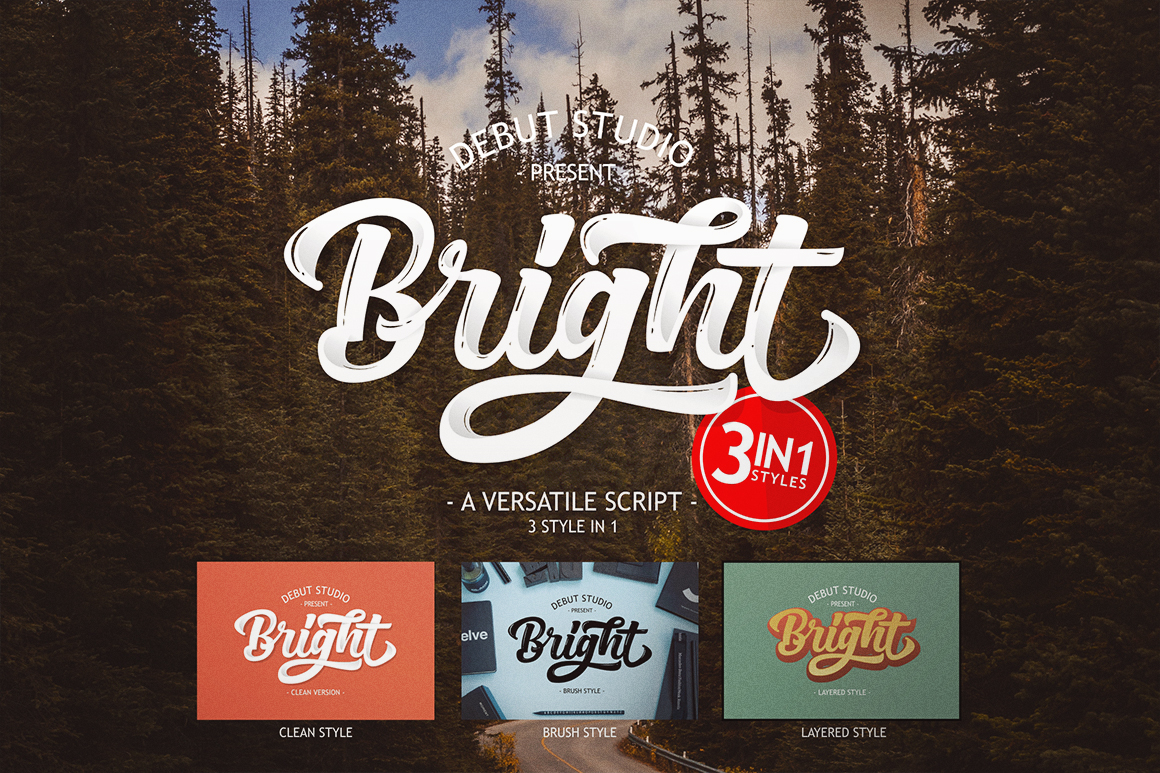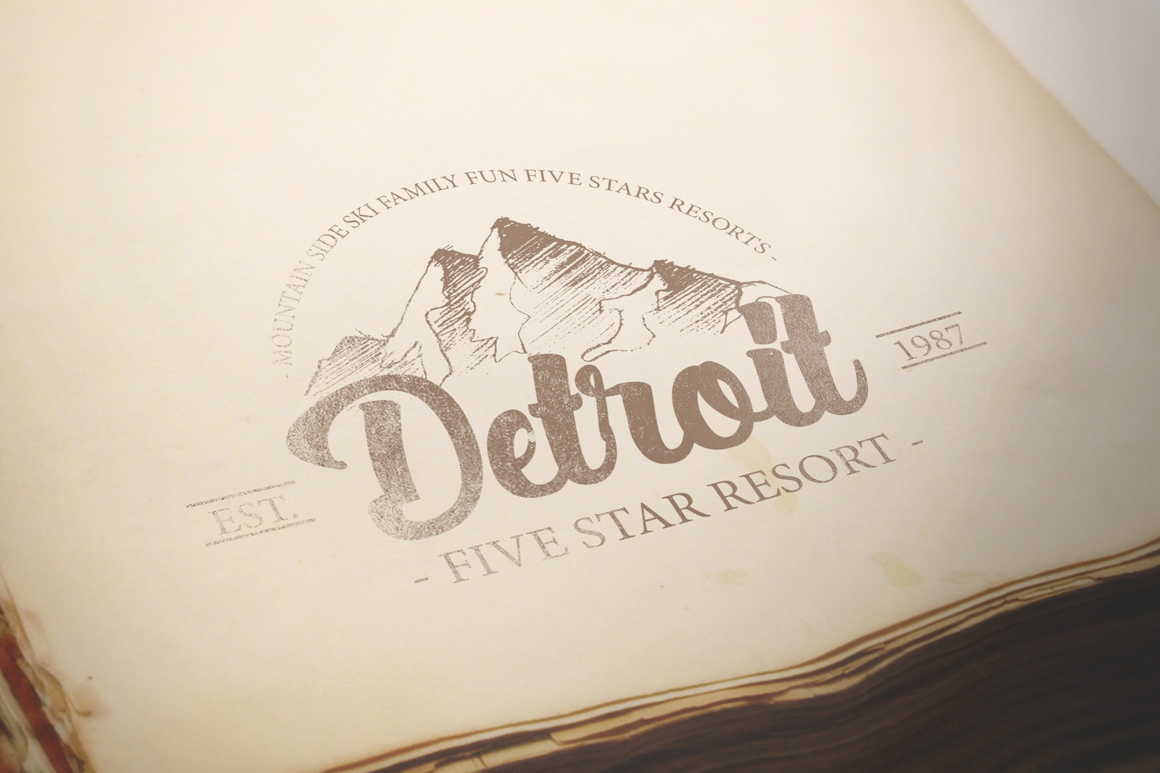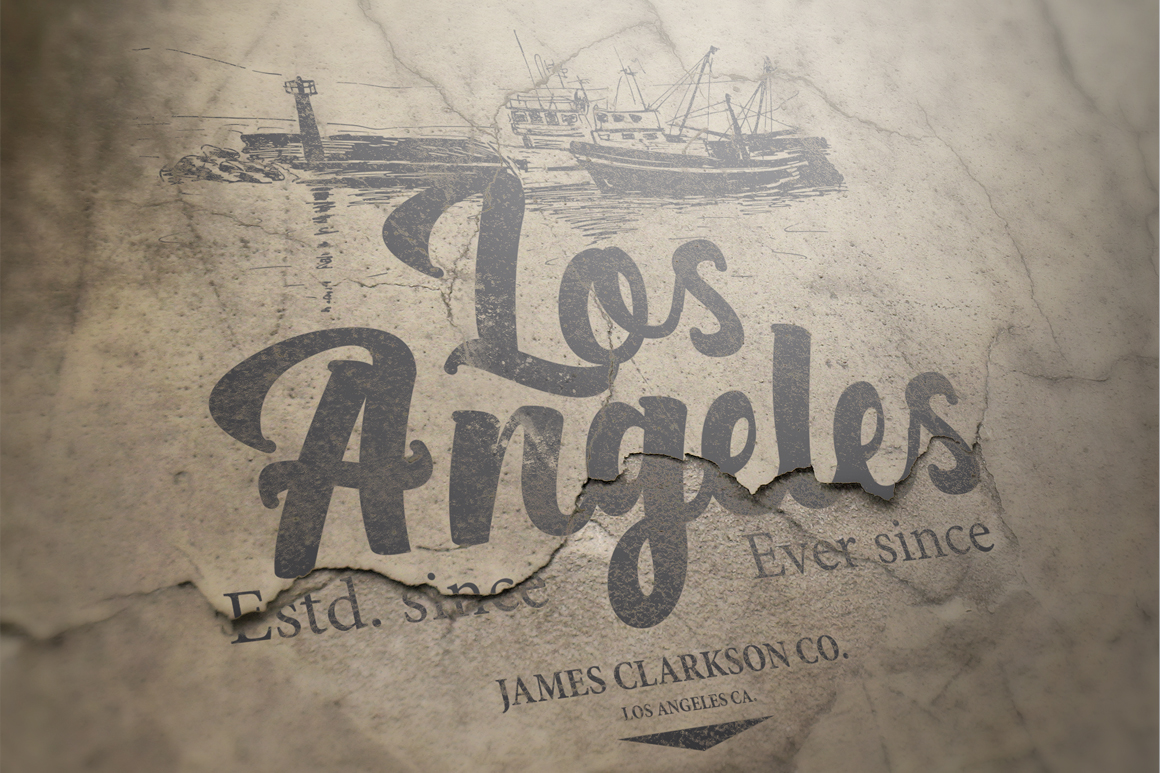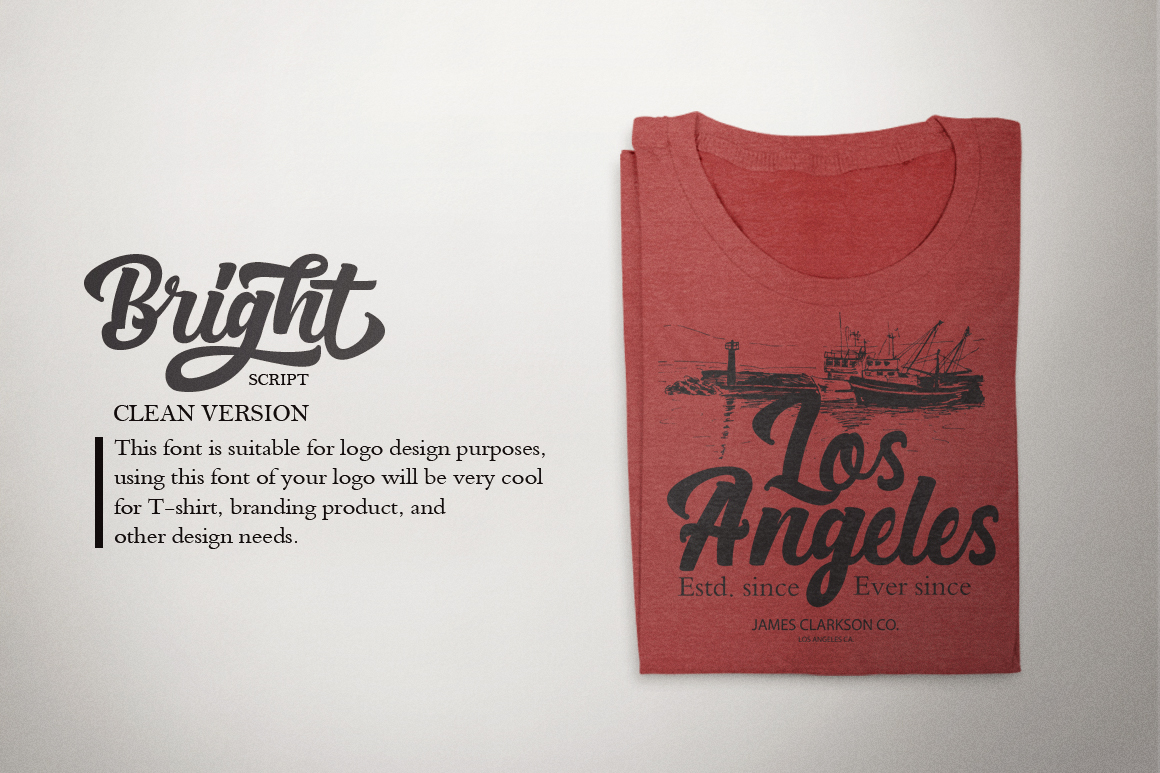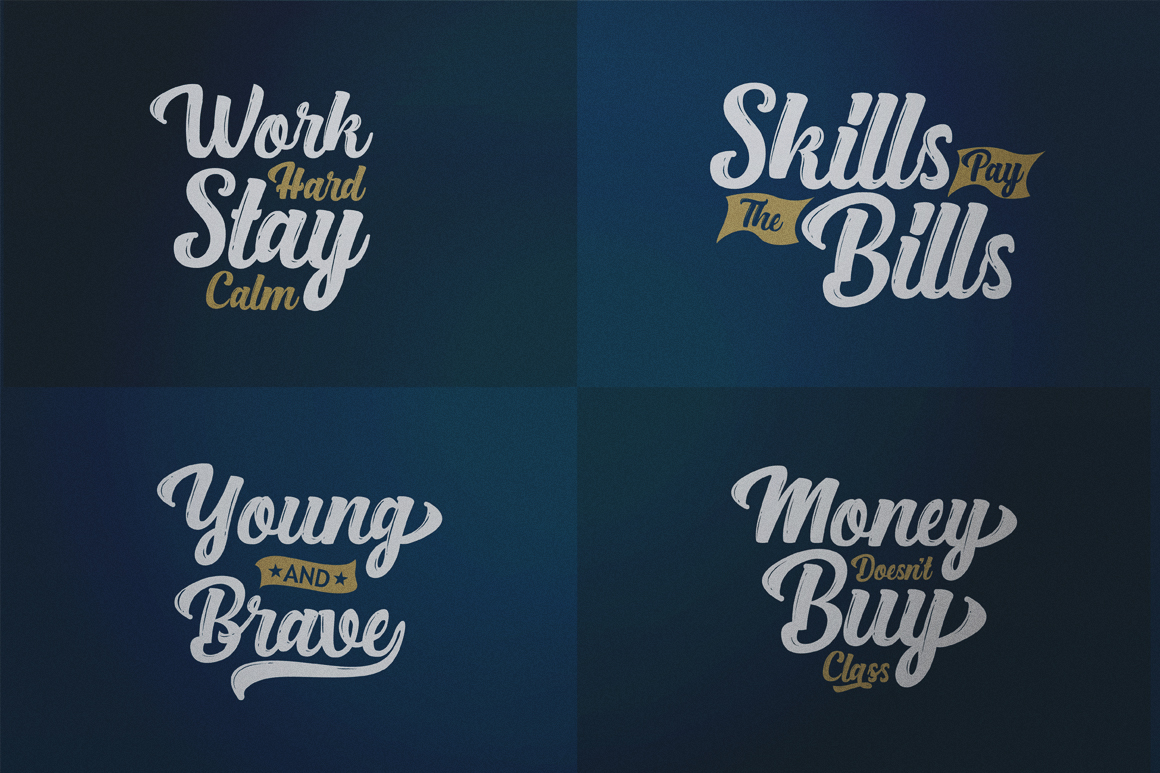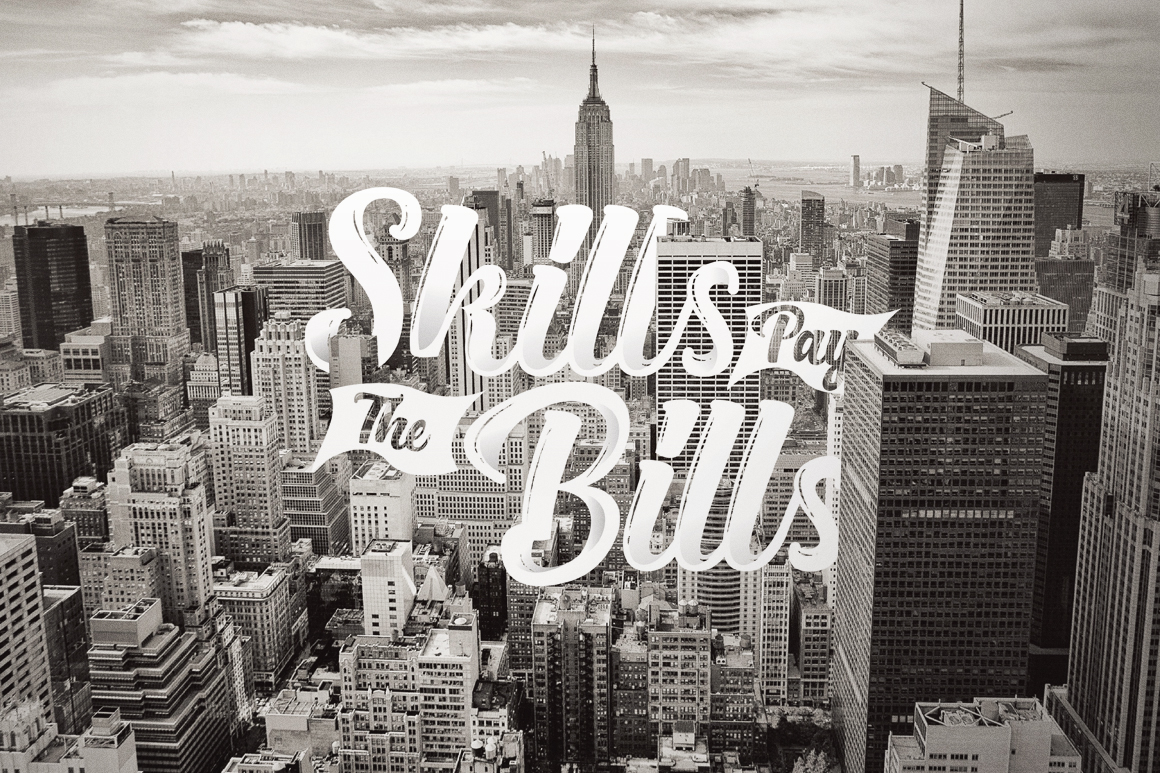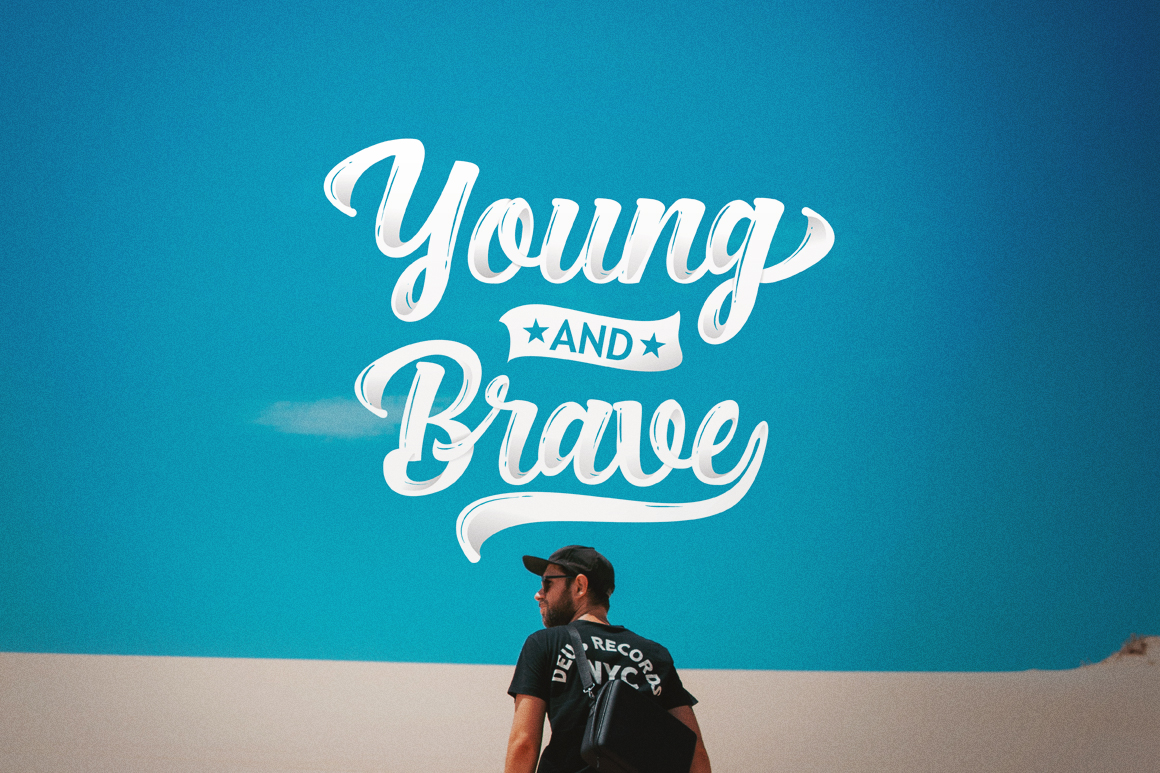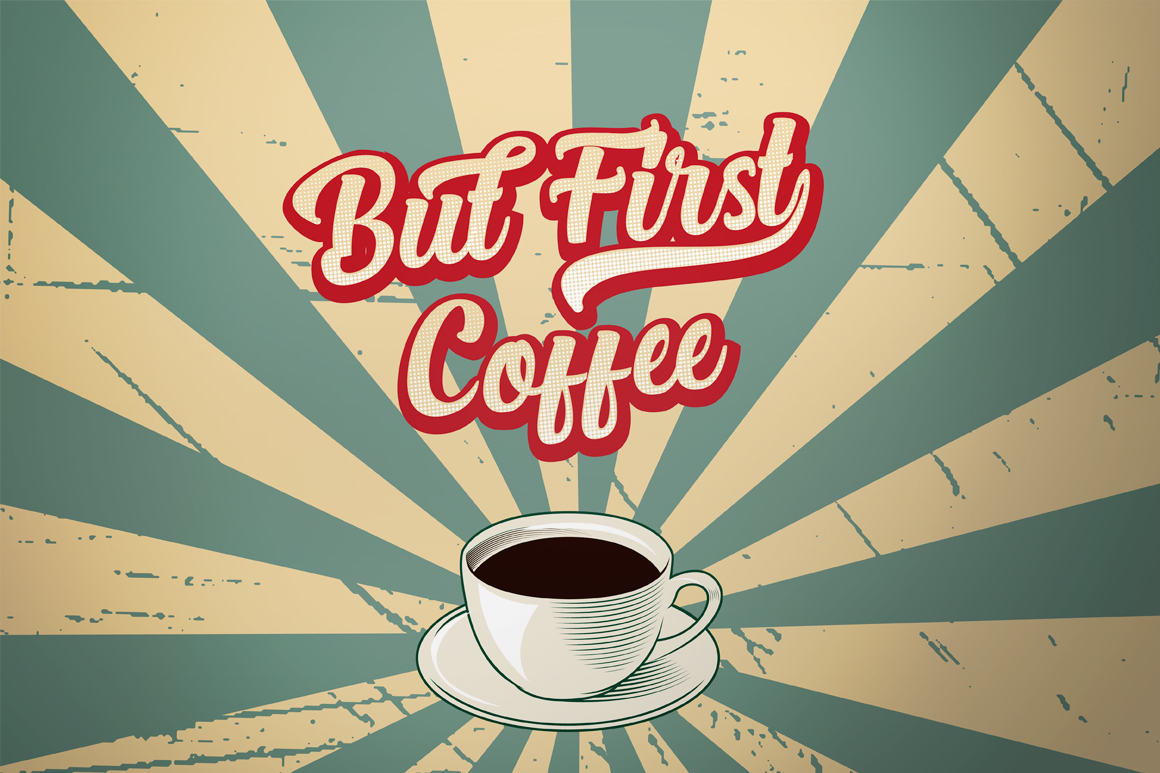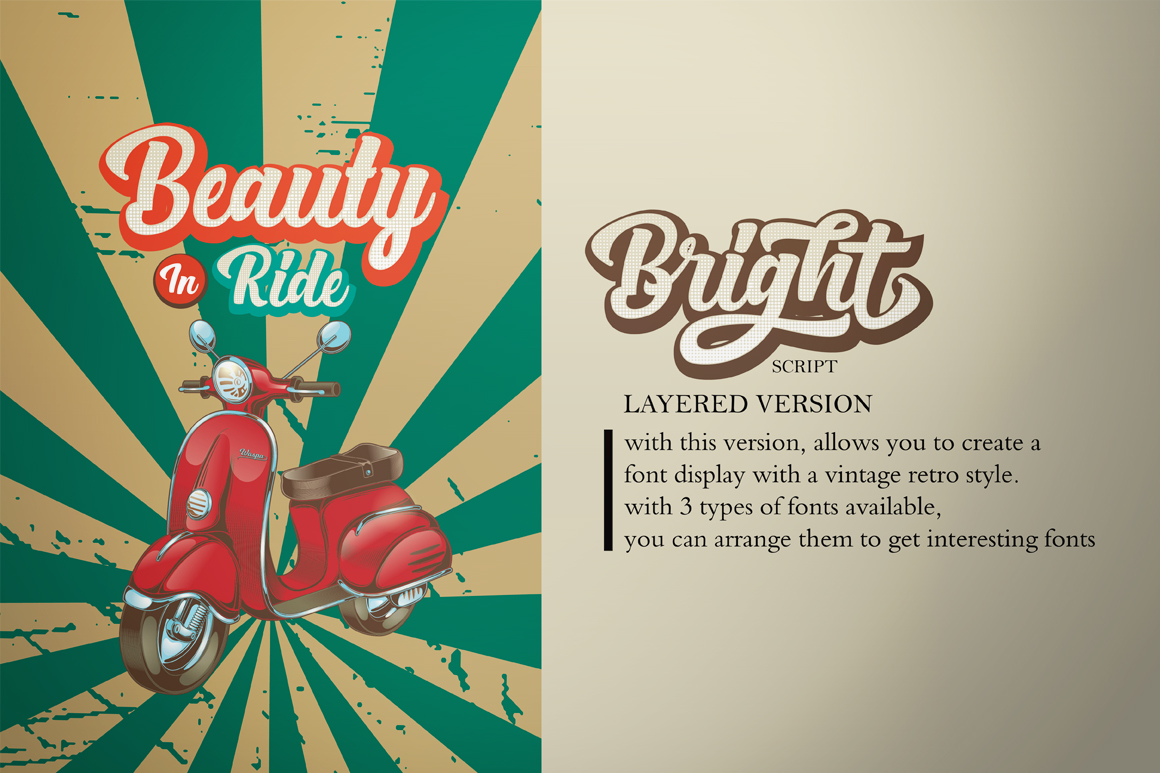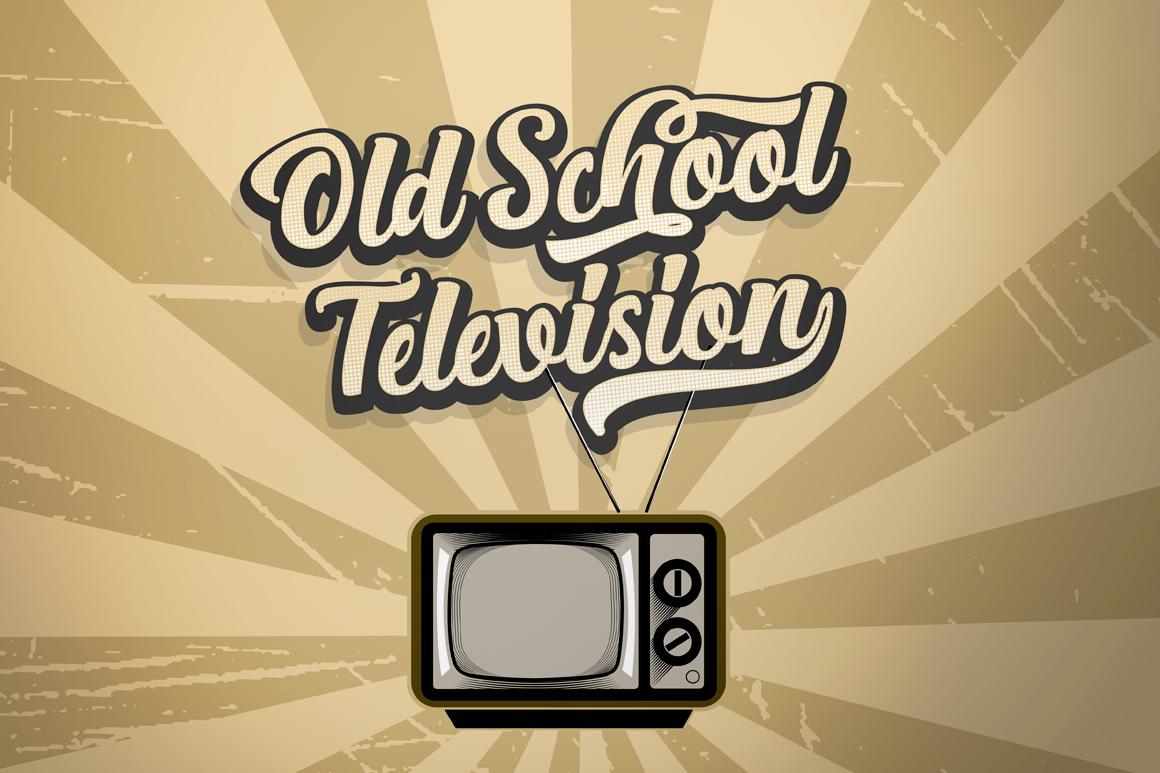
Bright Script Font
About Bright Script Font
The stunning Bright Script is layered font, allowing you to add some variation to your designs.
The Bright Script is available in 3 font styles:
– Bright Script (Brush Version), This version will be very well used for the purposes of lettering design as it is now a trend used in social media to share a wise with poster, inspirational, motivation quote and other words.
– Bright Script (Clean Version), This font is suitable for logo design purposes, using this font of your logo will be very cool and proffesional for t-shirt, branding product, and other design needs.
– Bright Script (Layered Version), With this version, allows you to create a font display with a vintage retro style, with 3 types of fonts available, you can arrange them to get the interesting fonts.